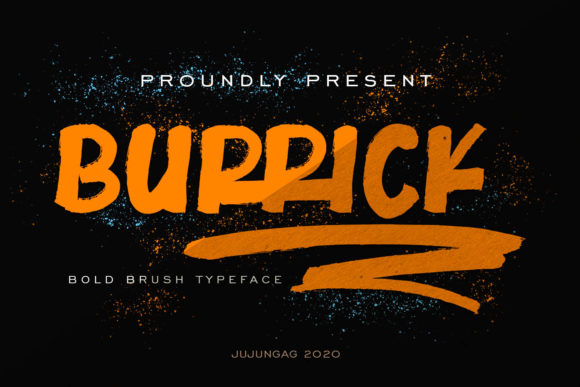
**Introducing Burrick Font: Unveil the Spooky Elegance for Your Halloween Designs**
Step into the realm of spine-tingling typography with Burrick Font, the masterpiece crafted by Nerdstudio. This brushed display font exudes an otherworldly charm, capturing the essence of Halloween's eerie allure.
With its intricate strokes and haunting undertones, Burrick Font breathes life into your Halloween posters, invitations, and social media posts. Its bold and captivating character transcends the mundane, transporting you to a realm of enchanting darkness.
Awaken your creativity with Burrick Font's versatility. From branding your Halloween-themed ventures to adorning your social media feed with spine-chilling quotes, this font empowers your imagination to conjure up designs that send shivers down the spine.
Embrace the power of Burrick Font and unleash a symphony of fear and delight upon your audience. Its brush-like texture evokes a sense of authenticity, drawing your viewers into the haunting world you create.
Whether you're a seasoned designer or a novice seeking to add a touch of the macabre to your creations, Burrick Font is your spellbinding companion. Unleash your dark imagination and watch as your Halloween designs take on a life of their own.
Dare to delve into the enchanting world of Burrick Font and let your designs dance with the spirits of the night. Its haunted charm will cast a spell upon your audience, leaving them spellbound by your creativity.